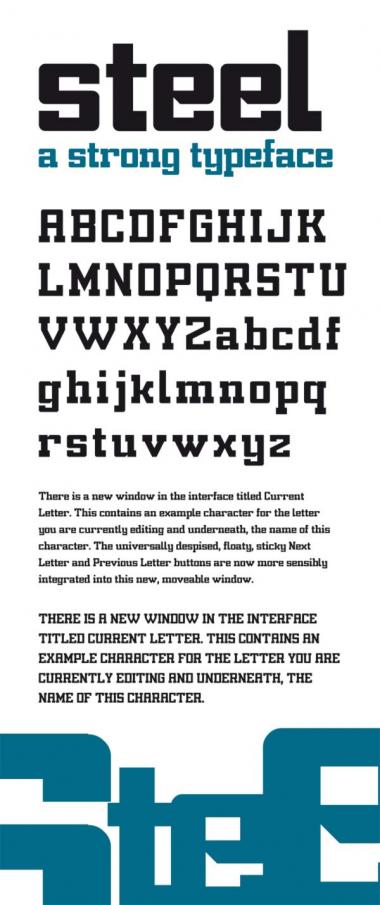
STEEL
Axel Leyer
Slab Serif
Hi there, Axel... there is an extra dot just above the "x".
I have redo the "z", a more thickness diagonal...
Nice work, Axel... I like!
i must have overseen this. big one!
... but this really deserves more glyphs.
Wow! 10... don´t know what to say... but you're right it needs more glyphs...I´m going to work on it
Added uppercase and somer changes on "v" and " w"
This is really nice, Axel. So solid and sturdy. I like, I like.
Want to add numbers and more symbols...hope in some days it will be finished...